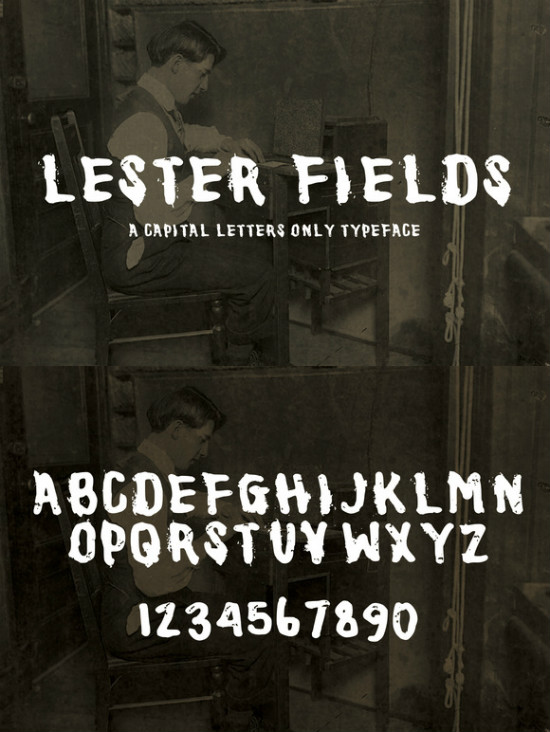
Lester Fields Display Typeface
Lester Fields was an accountant for the large New York printing firm Gorman Brothers at the turn-of-the-century. His creative book keeping was instrumental in his ability to embezzle more that $6,000 from the company during 1914 and 1915 – that’s about $200,000 in today’s money. He was eventually caught and served 4 years in prison. Upon his release he became heavily involved with organized crime and eventually landed back behind bars 9 years later on charges of racketeering, money laundering and obstruction. This typeface is based on the letters he wrote to his family and friends while in prison.*
• This handmade typeface is only available in capital letters and numbers (no lowercase).